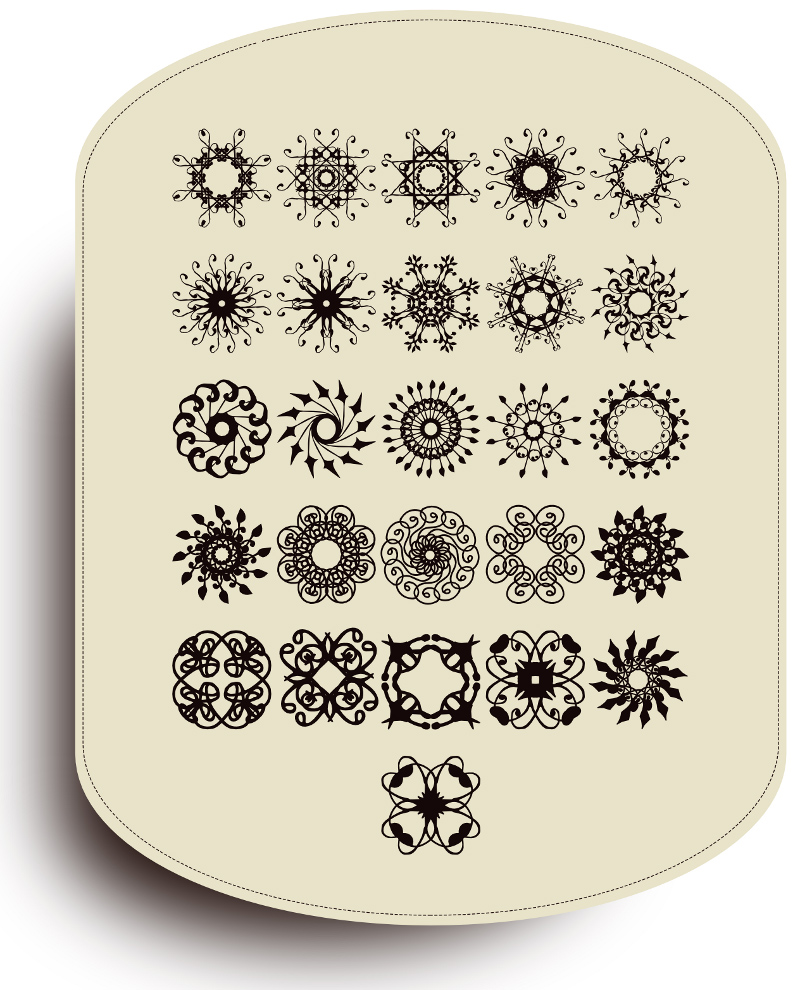
fantasy dingbats vol.2 (to be used in layouts instead of a photoshop brush) vol.1 here: http://www.dafont.com/svgfont-1.font ~ all glyphs are under keys a-z (lower case) ~ revision 1.2 - Jan 13th 2012 - general cleaning up, tests and file validation. |